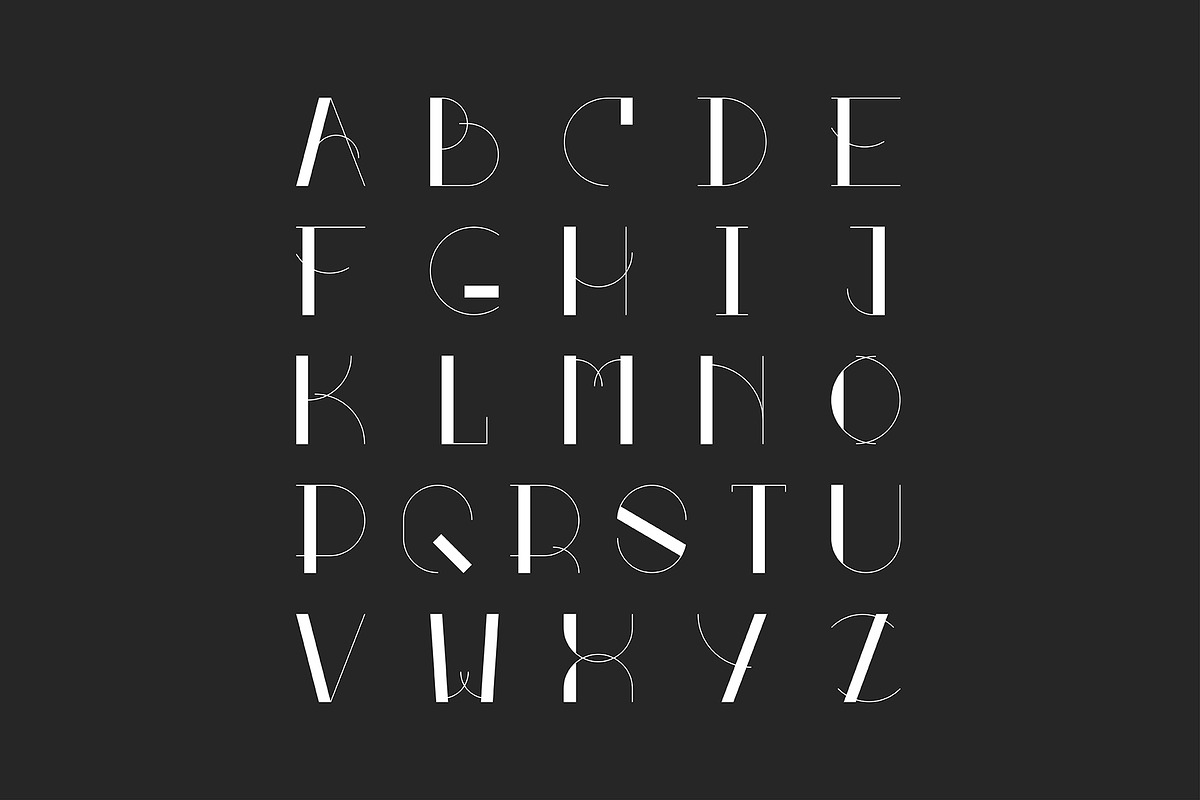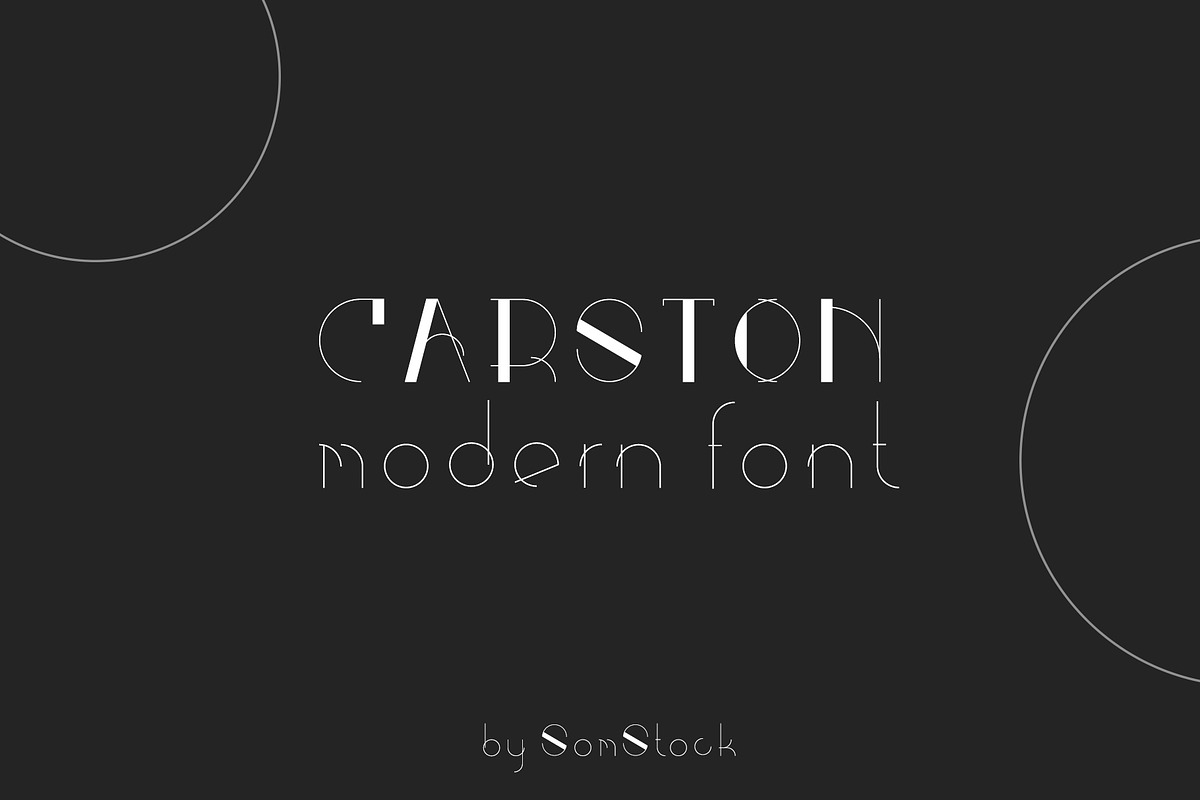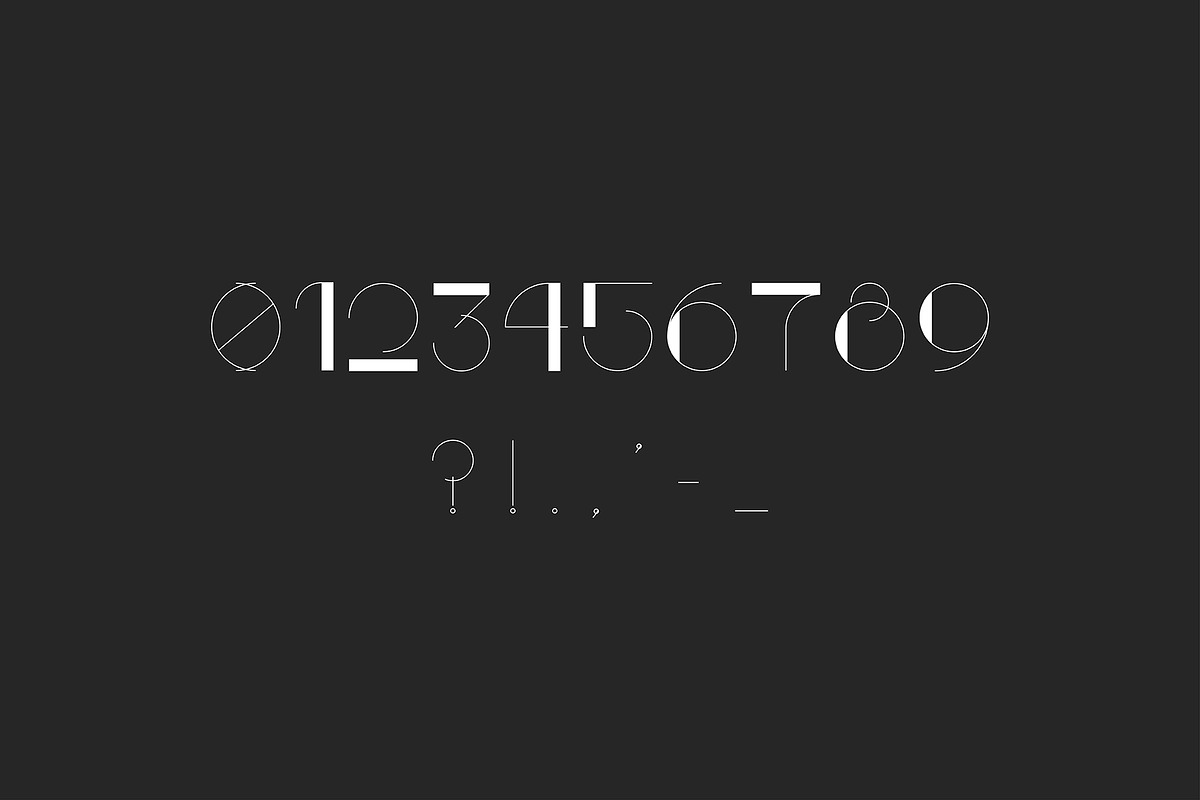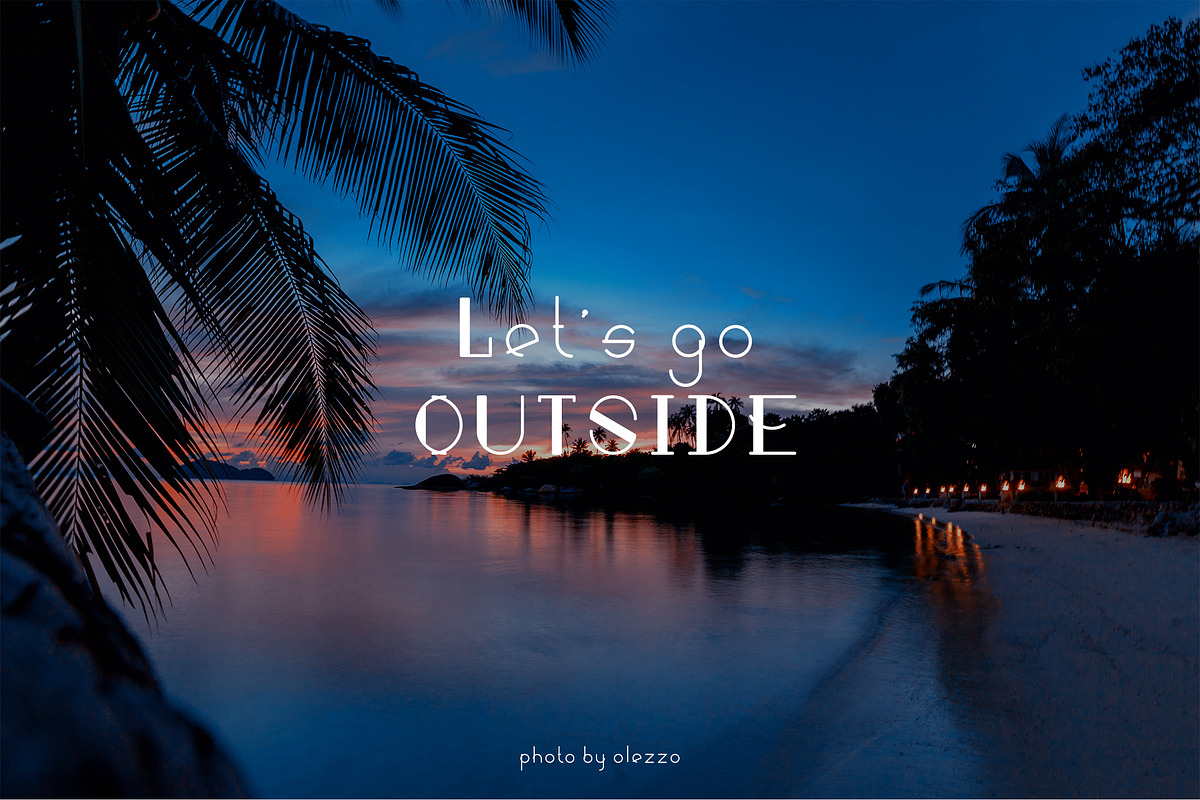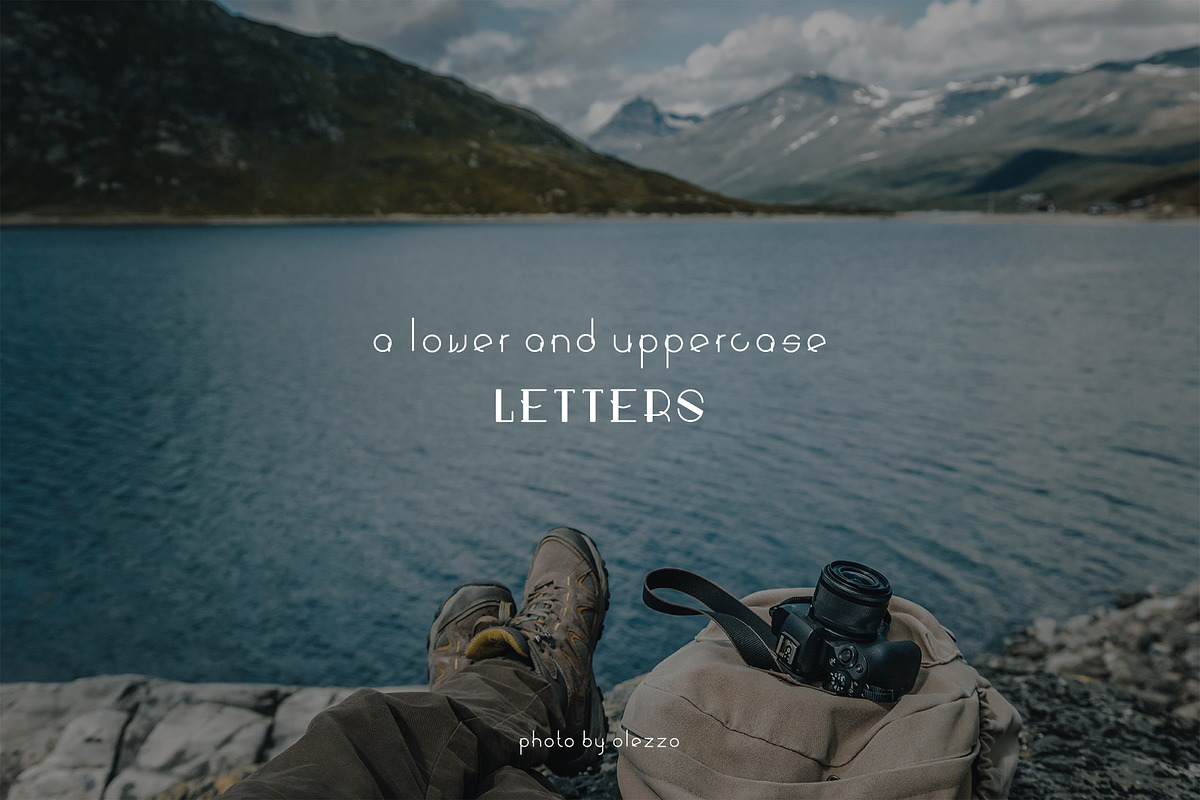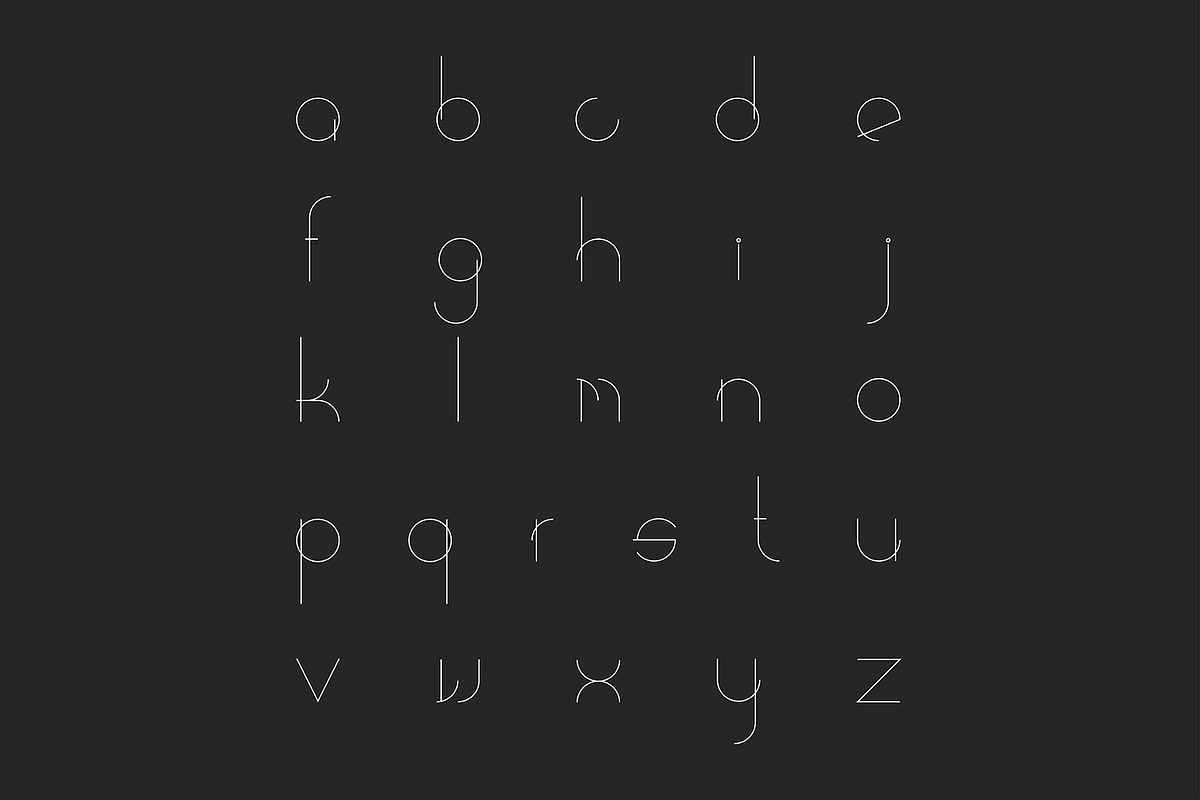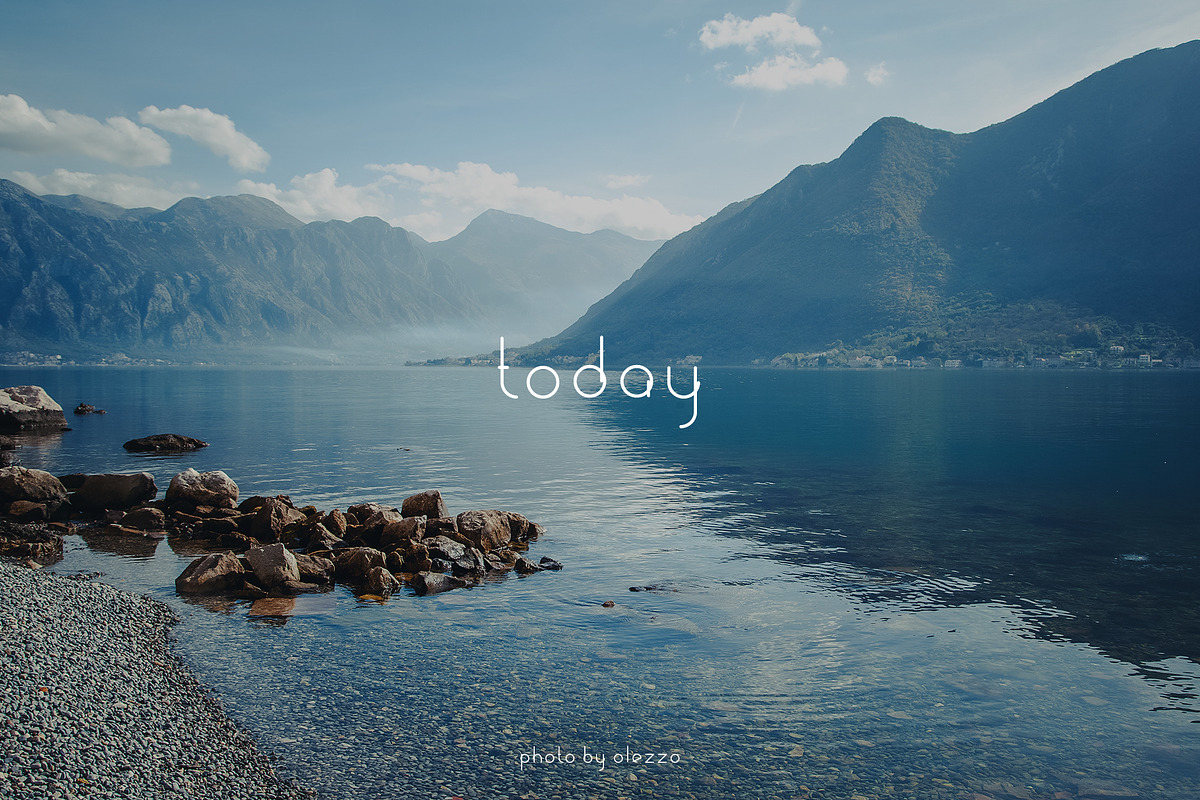
CARSTON minimalistic font design
Carston is a minimalistic font design. It includes upper- and lowercase letters, numbers as well as some additional characters.